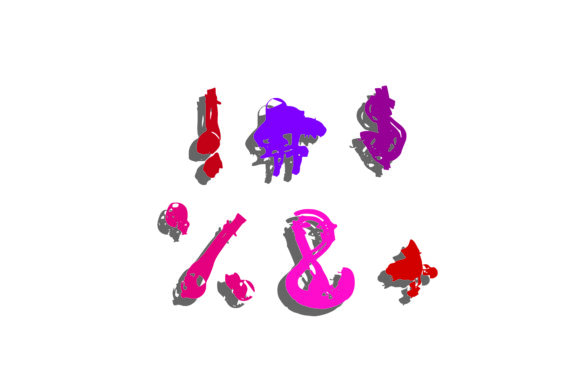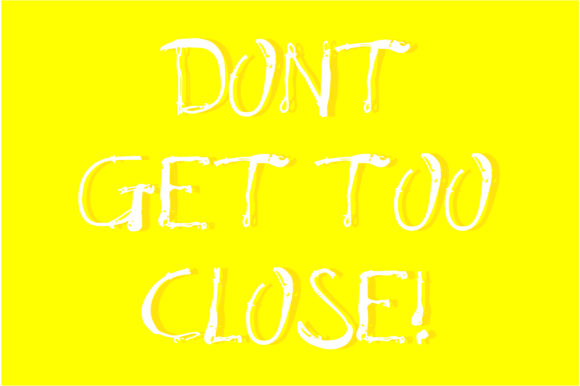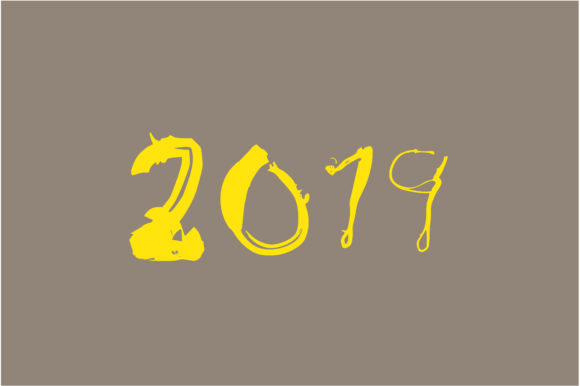
HomeScript FontsFunny Zombie Font Script Fonts Funny Zombie Font FacebookXPinterestWhatsApp Funny Zombie Font Poster 2 Funny Zombie Font Poster 3 Funny Zombie Font Poster 4 About Funny Zombie Font Funny Zombie is a bold, rough and weird handwritten font with a scary touch. DOWNLOAD NOW People also explored Metcon Waffle Font Shotgun Font Maltone Font Jacob Font Chelestiane Travel the World Font Belorian Font Tattoo Font 266 0 TagsFunny Zombie Font Previous articleReal Ohio Duo FontNext articleRaviky Font LEAVE A REPLY Cancel reply Comment: Please enter your comment! Name:* Please enter your name here Email:* You have entered an incorrect email address! Please enter your email address here Website: Save my name, email, and website in this browser for the next time I comment. Personal Use Free Written by Hand Personal Use Free Read more about this font Vuldo Personal Use Free Read more about this font Engine Personal Use Free Read more about this font Ciggs Personal Use Free Read more about this font BLOG Fonts That Capture the Spirit of New York City New York City is more than just a place—it’s an experience, a rhythm, a visual language... To increase your work productivity, choose the most readable fonts. Modern Sans-Serif Fonts That Brands Love in 2025 Best Fonts for T-Shirt Design – Top 2025 Picks